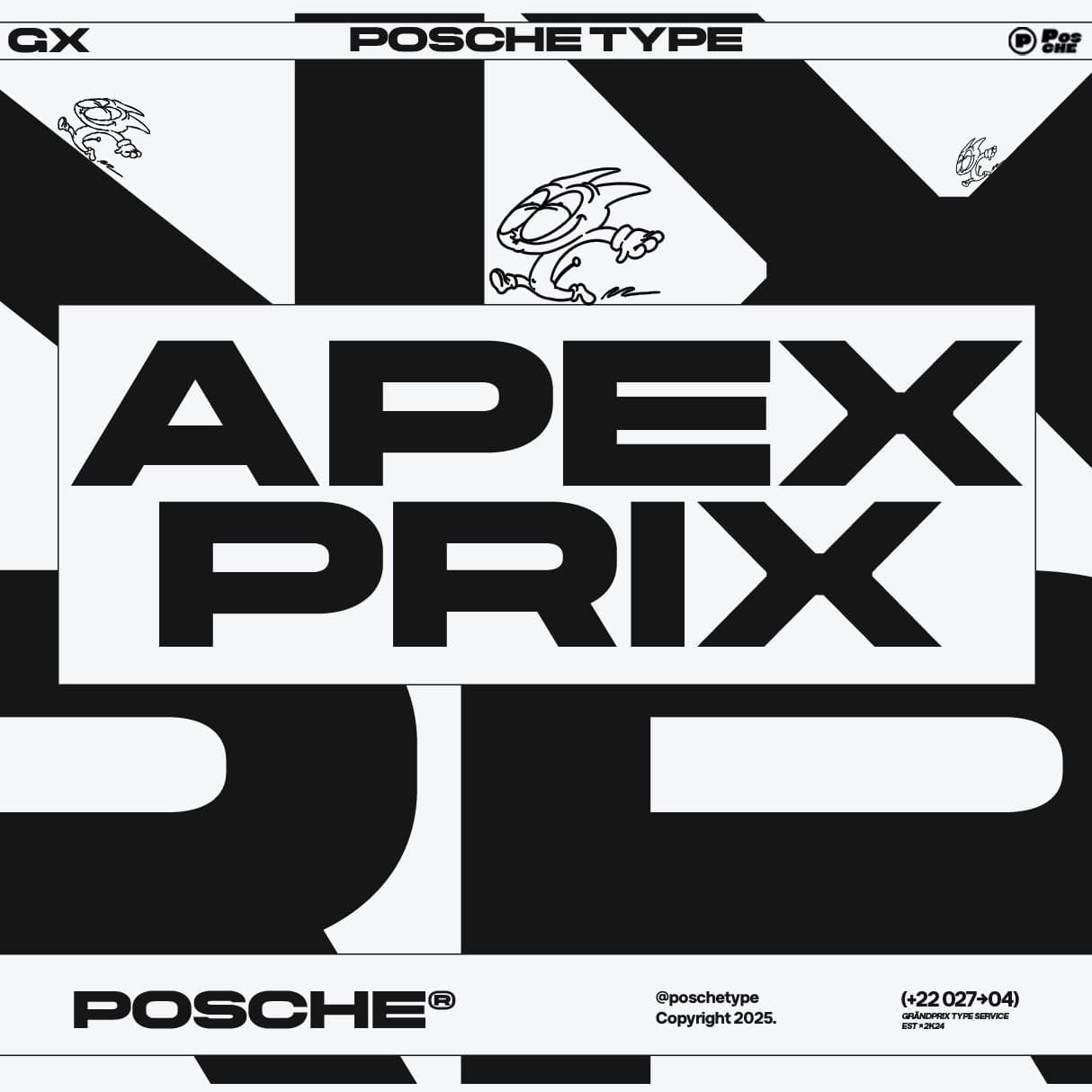
<p>PS APEX PRIX is a sans-serif typeface with an over-width style—simple, straightforward, and visually bold. Designed for any design element.</p> <p>The supporting font used in the poster is PS Clubs , PS Rismo & PS Chonk from Posche.</p>